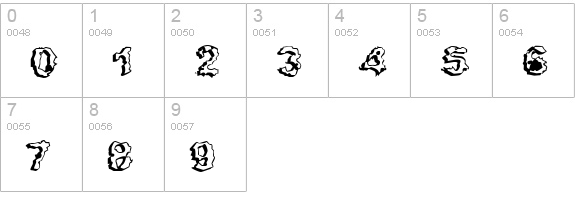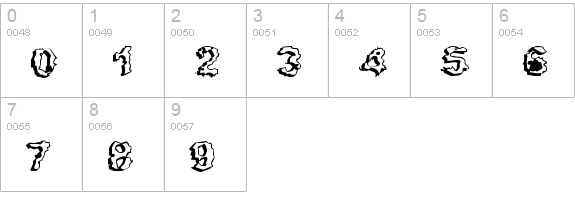
Apocalypshit Font Details
Apocalypshit font is a bold and edgy typeface that exudes a sense of chaos and destruction, perfect for creating impactful designs with a post-apocalyptic vibe. Its sharp, angular letterforms give off a rebellious and dystopian feel, making it ideal for projects that require a touch of darkness and grit. Despite its ominous name, Apocalypshit font offers a unique and eye-catching style that is sure to make your designs stand out. Best of all, Apocalypshit font is completely free to download at FontsMarket.com, allowing you to unleash your creativity without breaking the bank. Whether you're working on a graphic design project, branding, or any other creative endeavor that calls for a touch of the apocalyptic, Apocalypshit font is the perfect choice. Download it now and let your imagination run wild with this striking and versatile typeface.